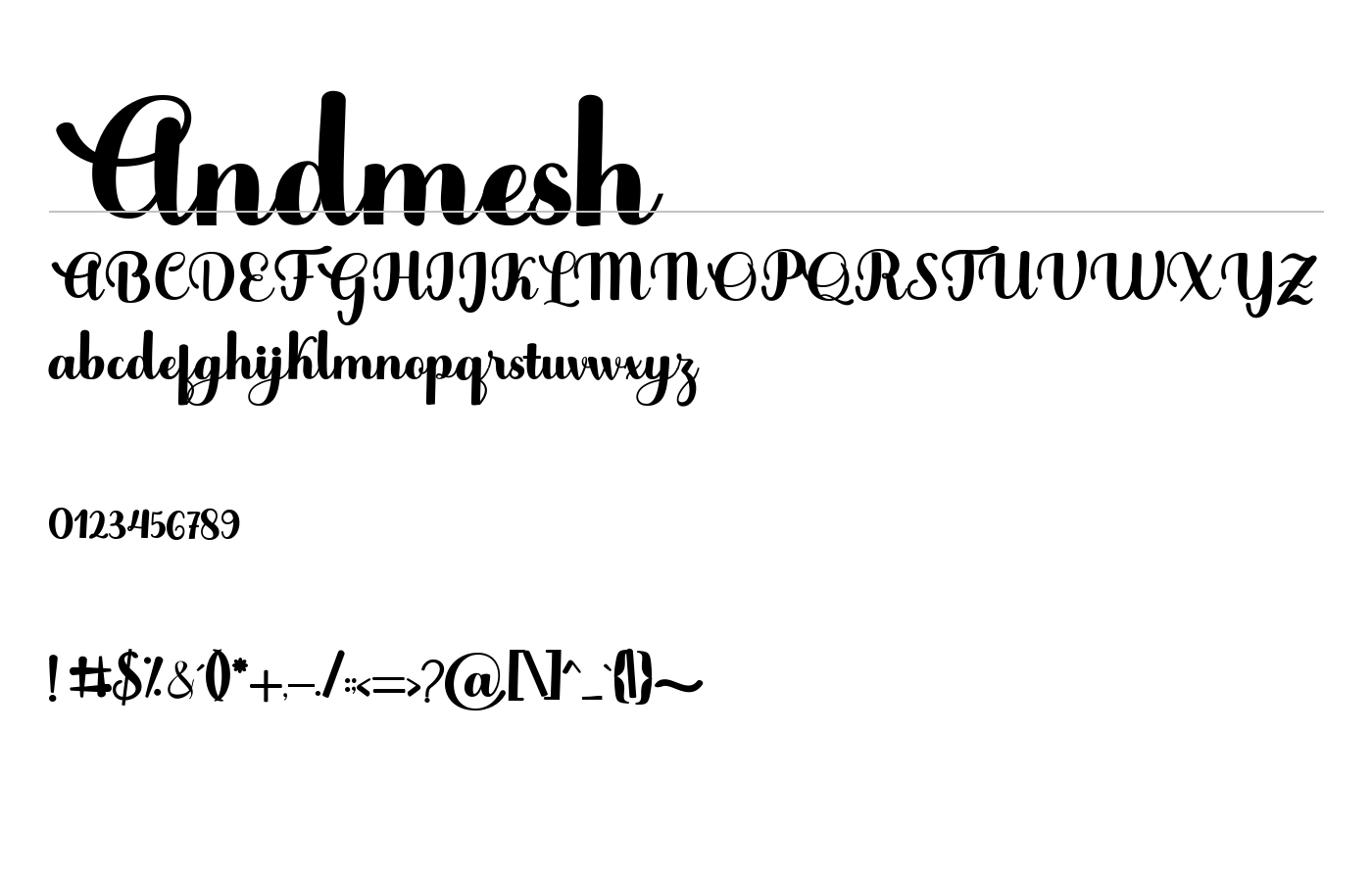
Andmesh is a lively and elegant script font with medium weight and smooth, flowing strokes that combine playful curves with crisp edges. Its unique letterforms, featuring decorative swashes and a mix of single-story and double-story characters, give it a charming and handcrafted feel, perfect for adding personality and warmth. This font works well for branding, invitations, and headlines where a stylish yet approachable look is desired.
Andmesh Font
About Andmesh Font
| Font family | Andmesh Font |
| Designer | Rahmad Rizky |